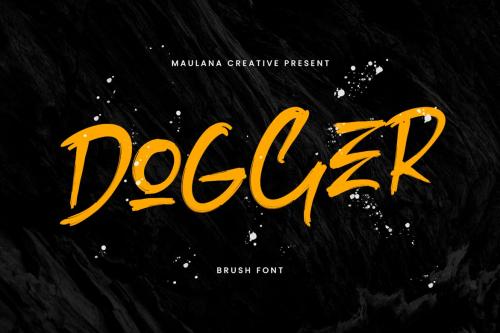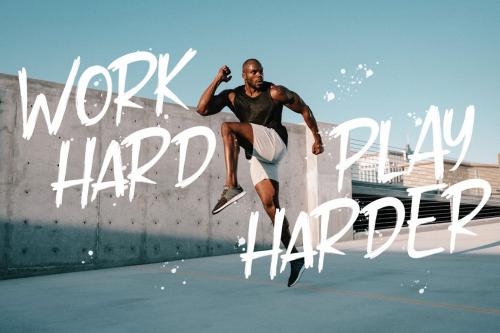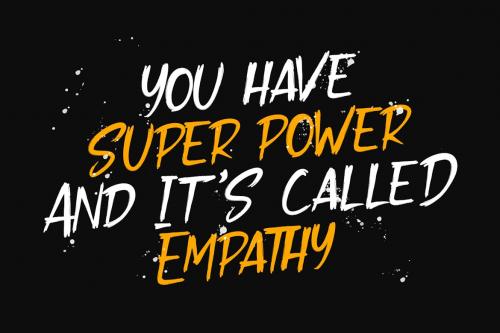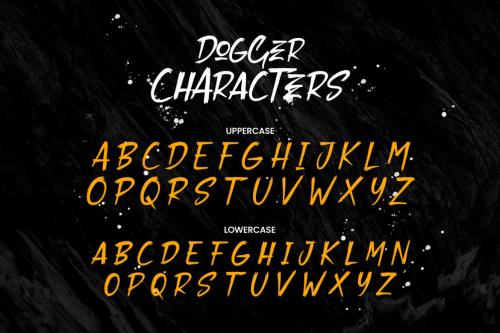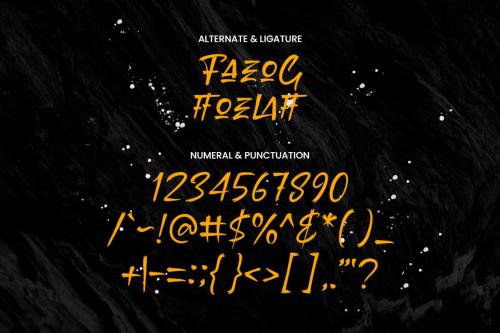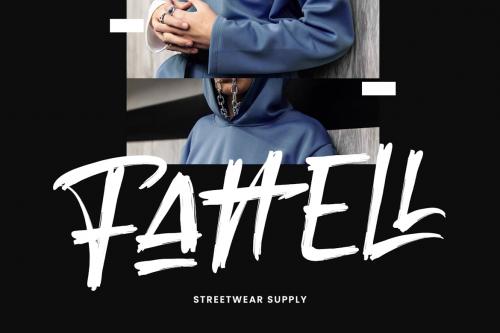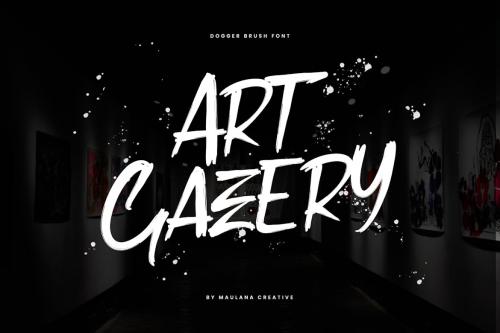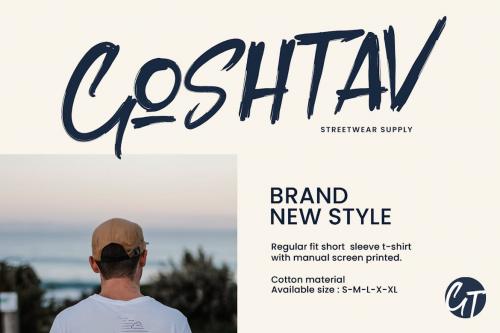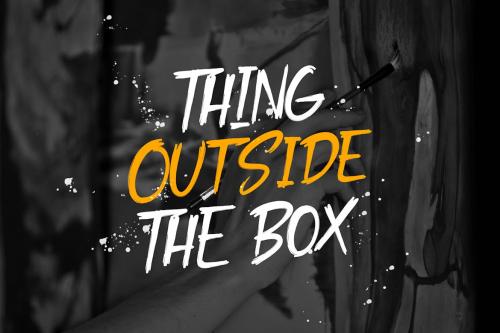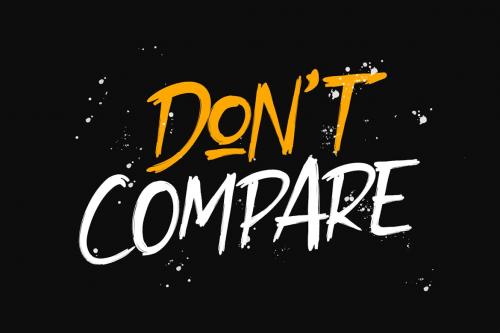
狗狗刷字体
Dogger Brush Font
Give your designs an authentic brush handcrafted feel. “Dogger Brush Font” is perfectly suited to stationery, logos and much more.